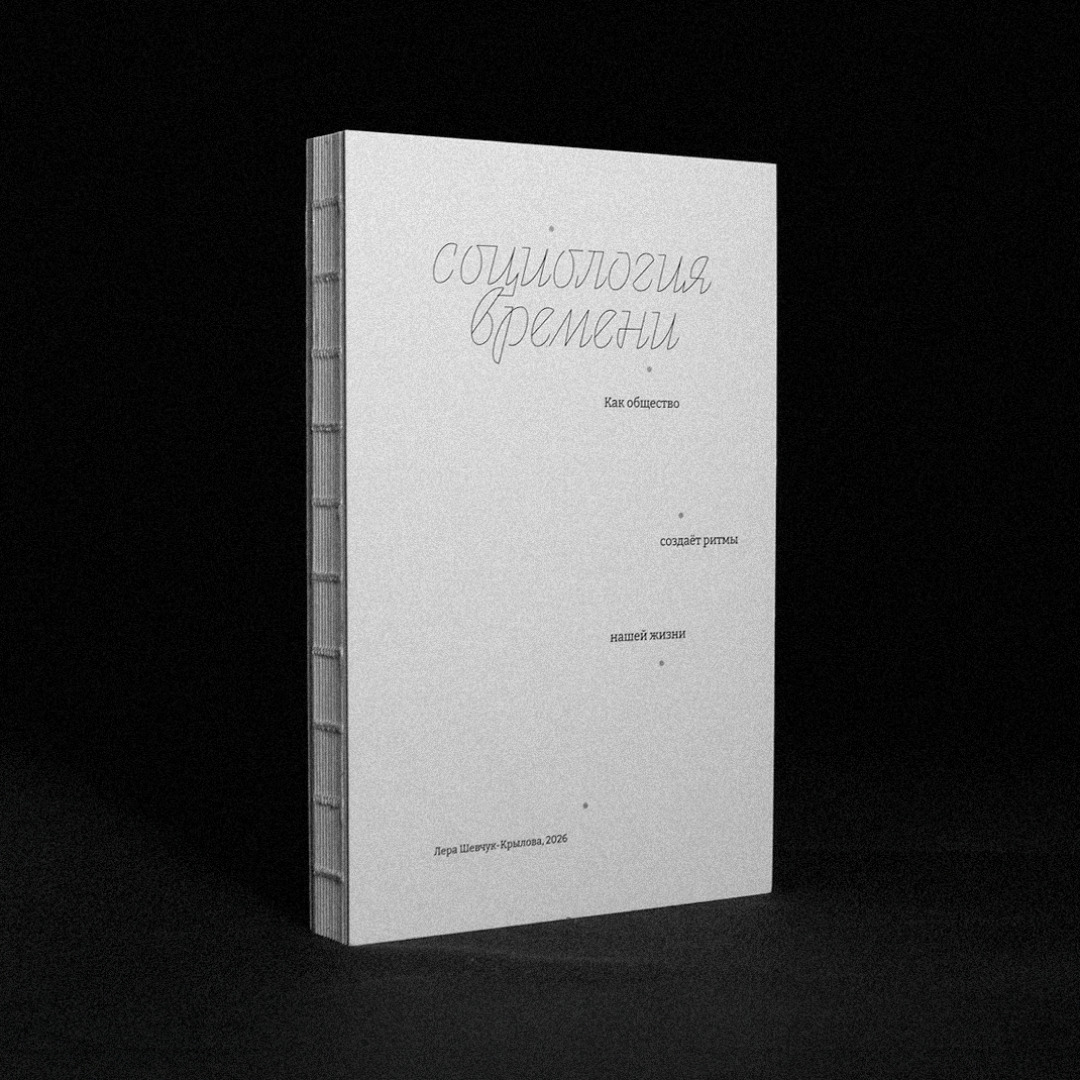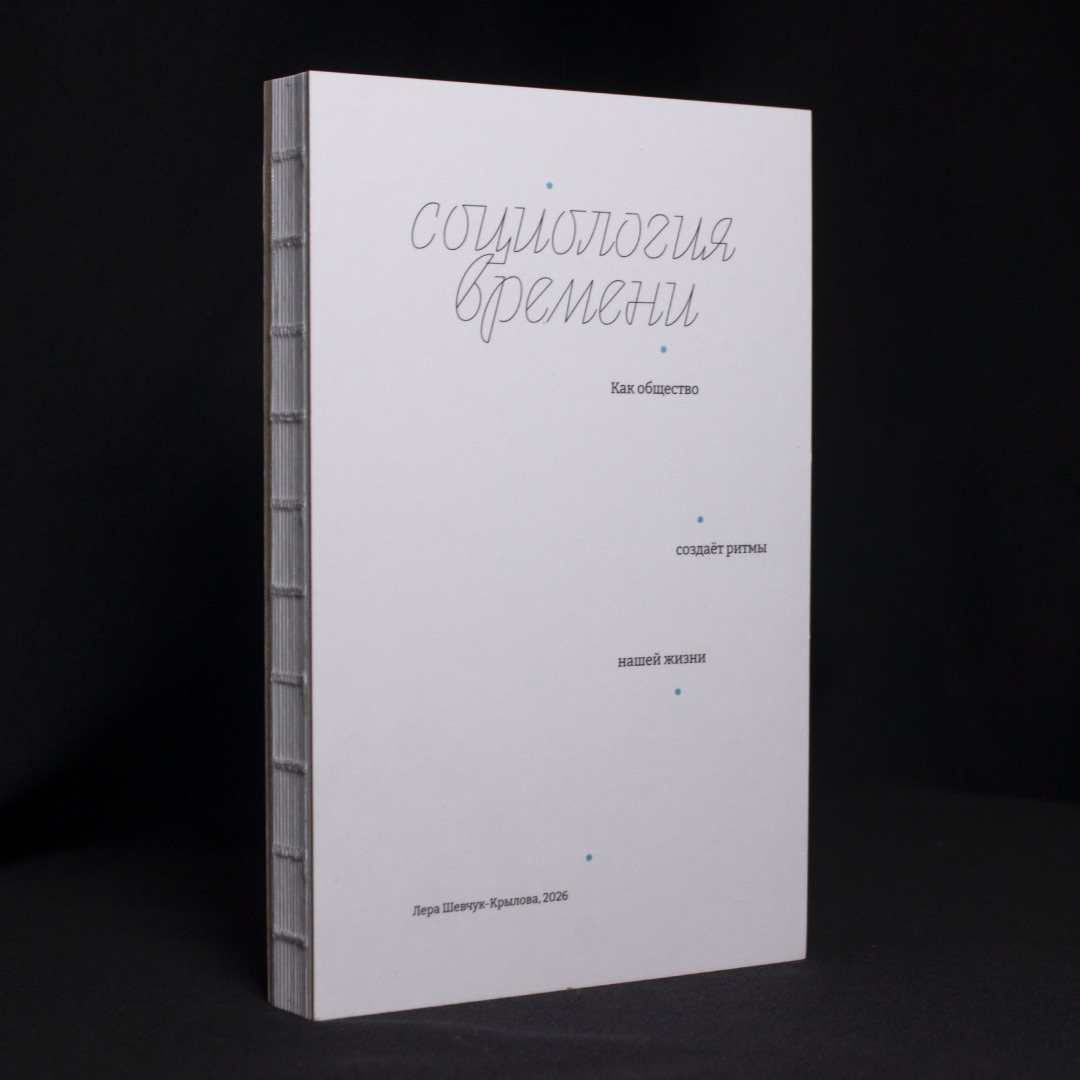
Sociology of Time is a student project by Valeria Shevchuk-Krylova in which she explores social time — which, unlike physical time, is measured not in hours and minutes, but in cultural events, technological advancements, and acquisition of collective experience. The book titles are set in Curbe by Оlga Pankova, while Bitter, designed by Sol Matas, is used for body text.
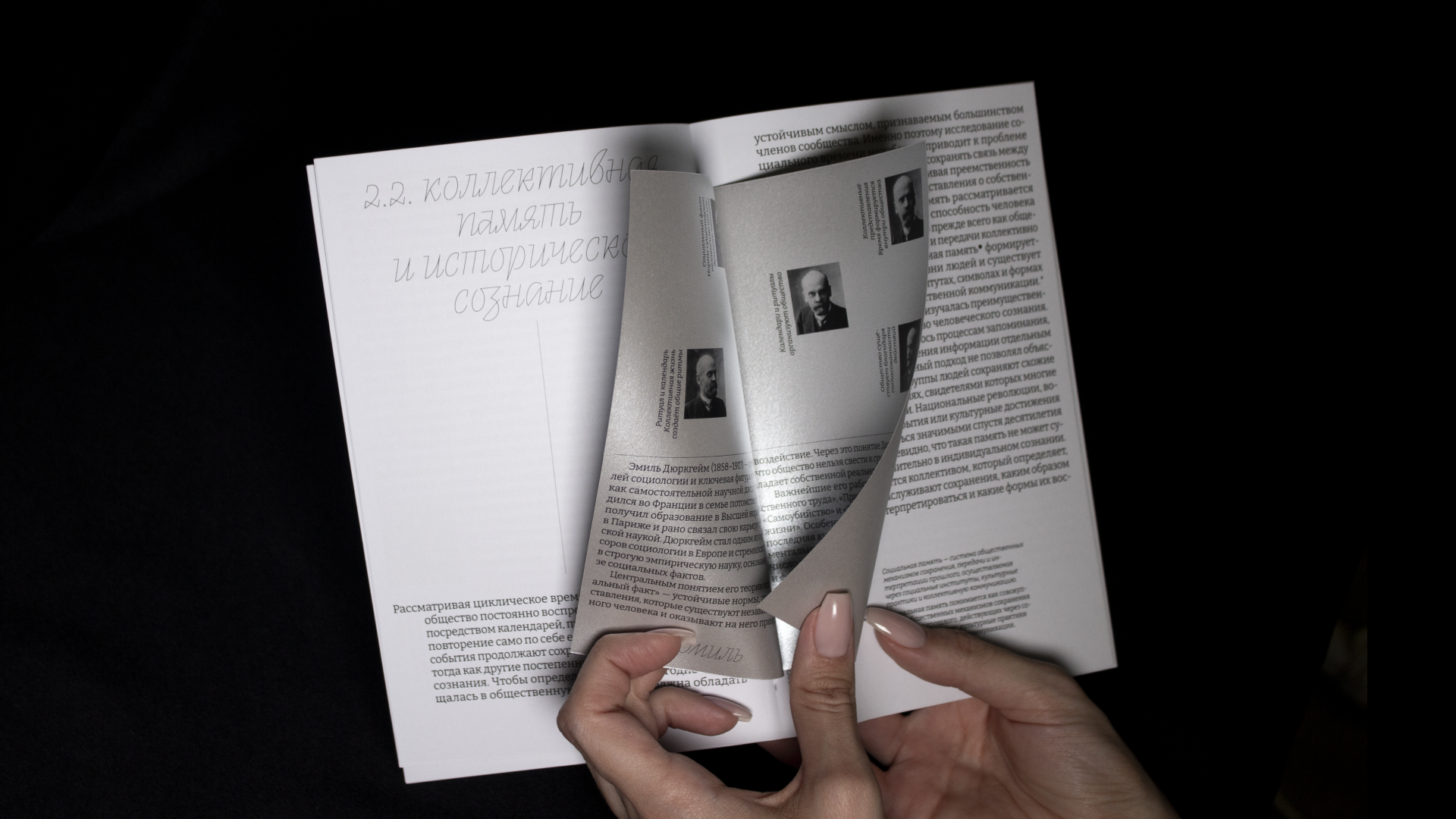
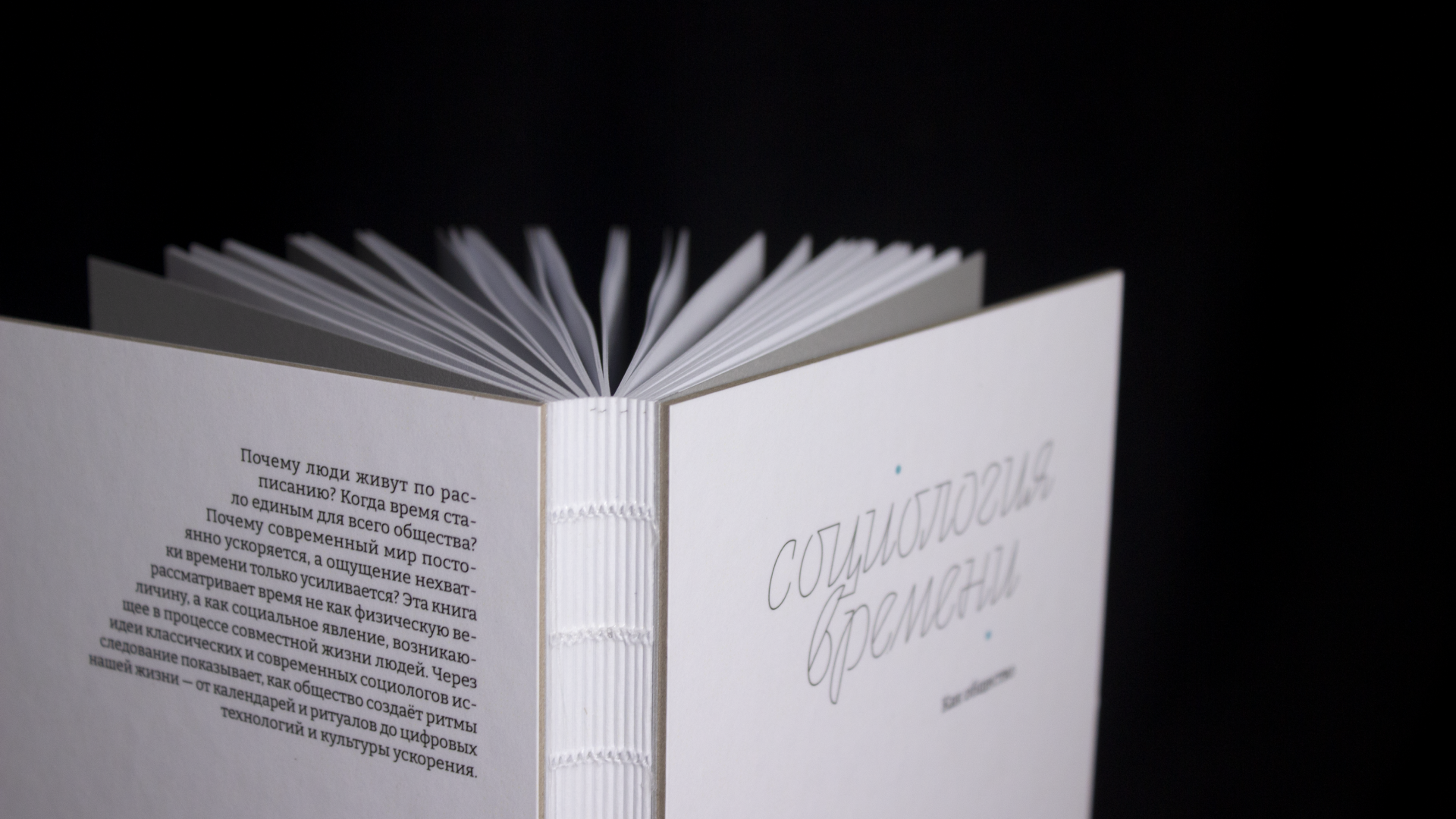
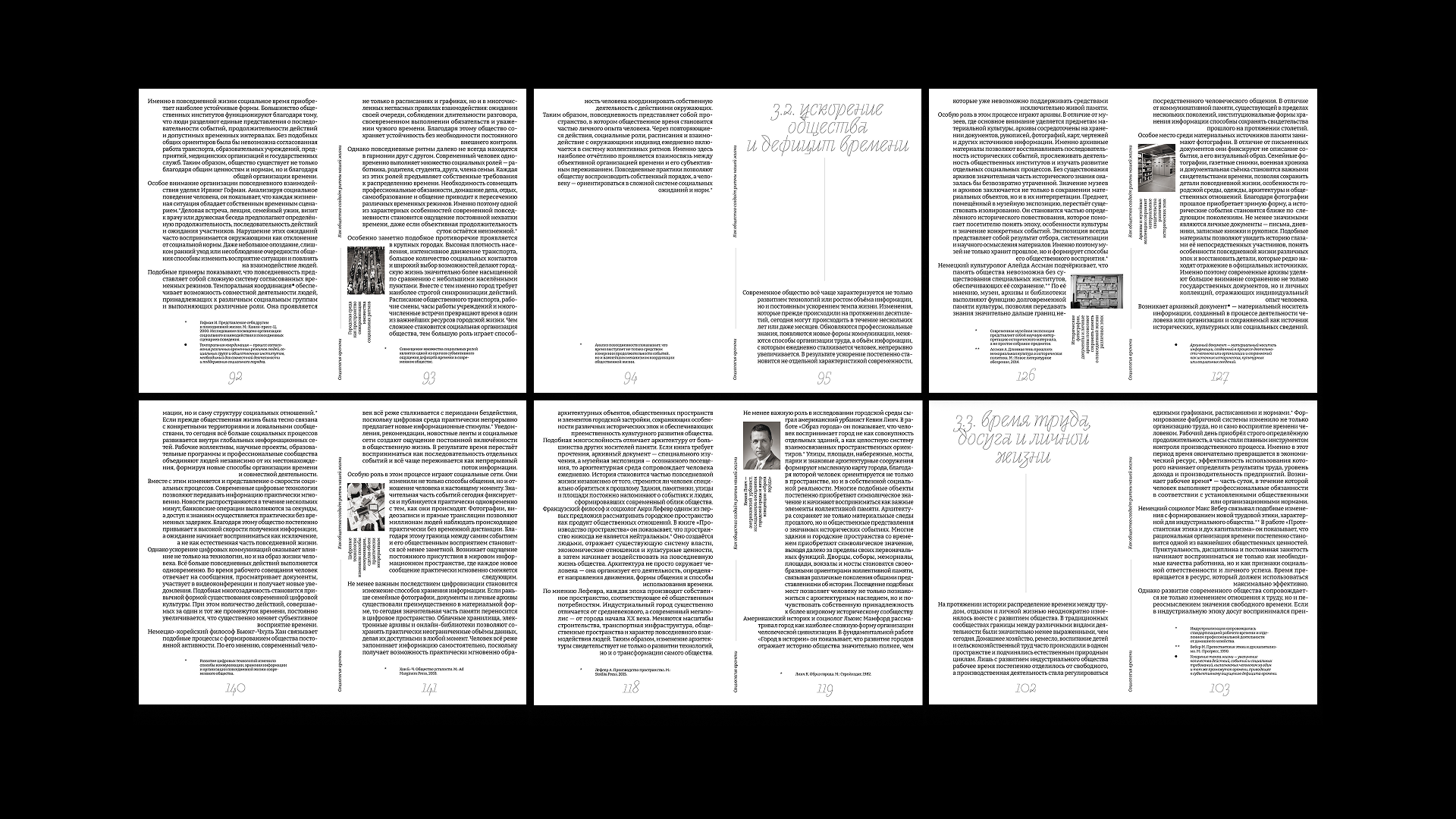
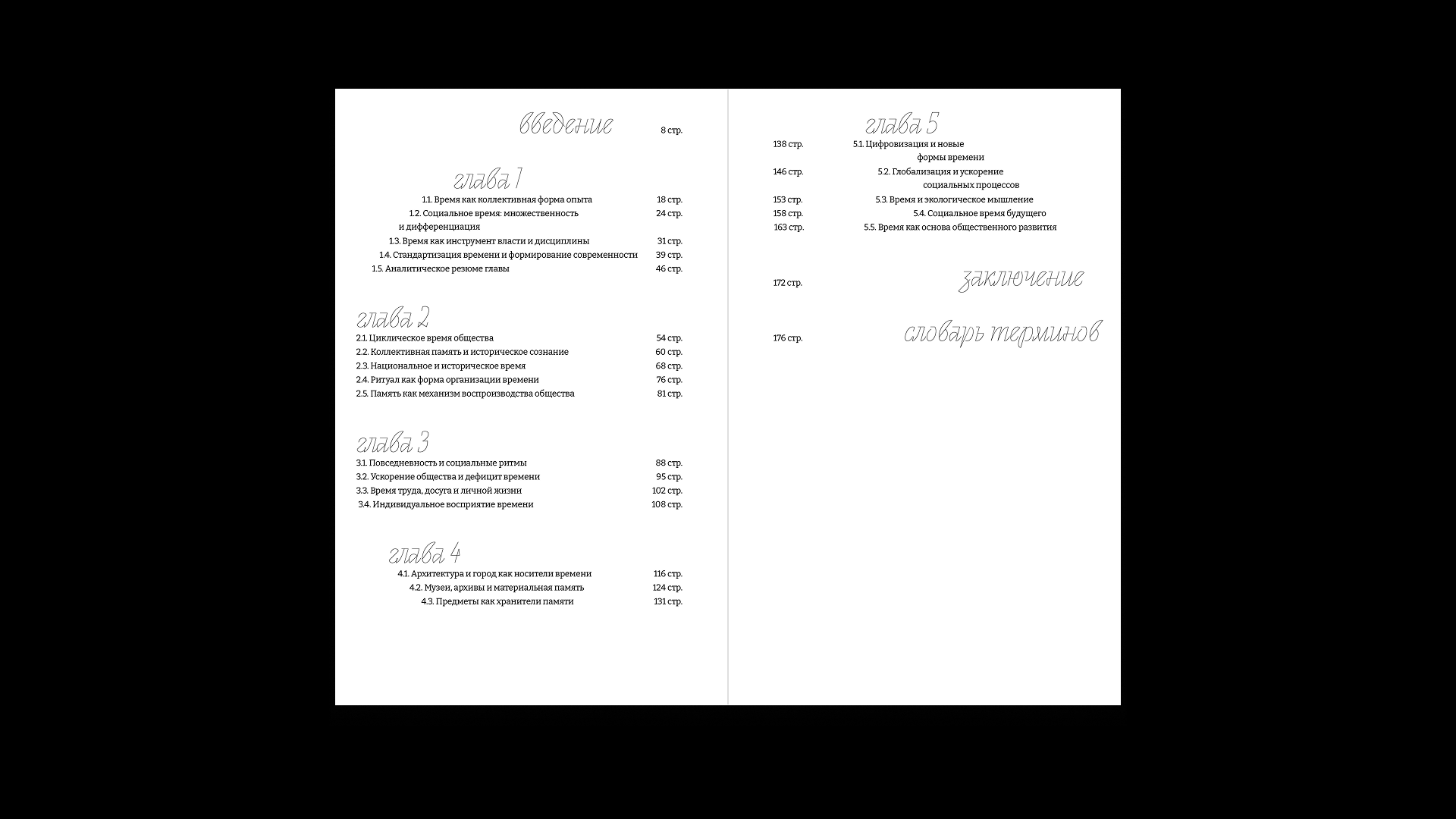
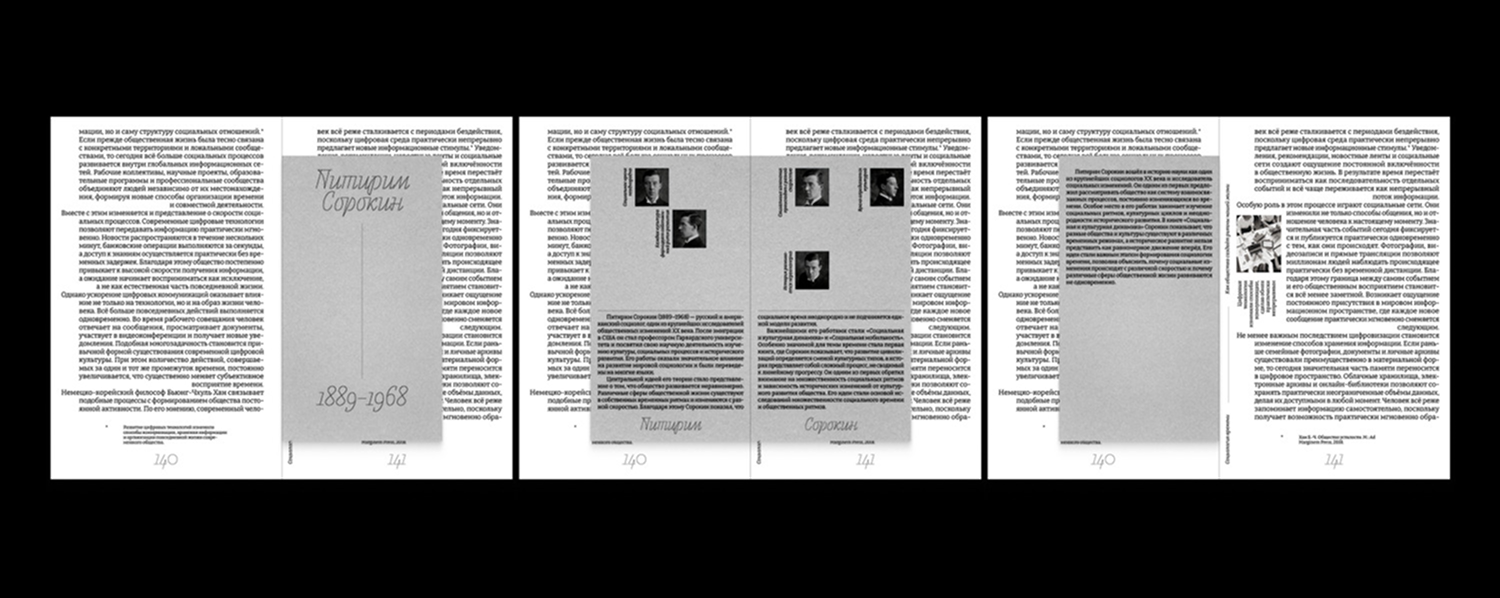
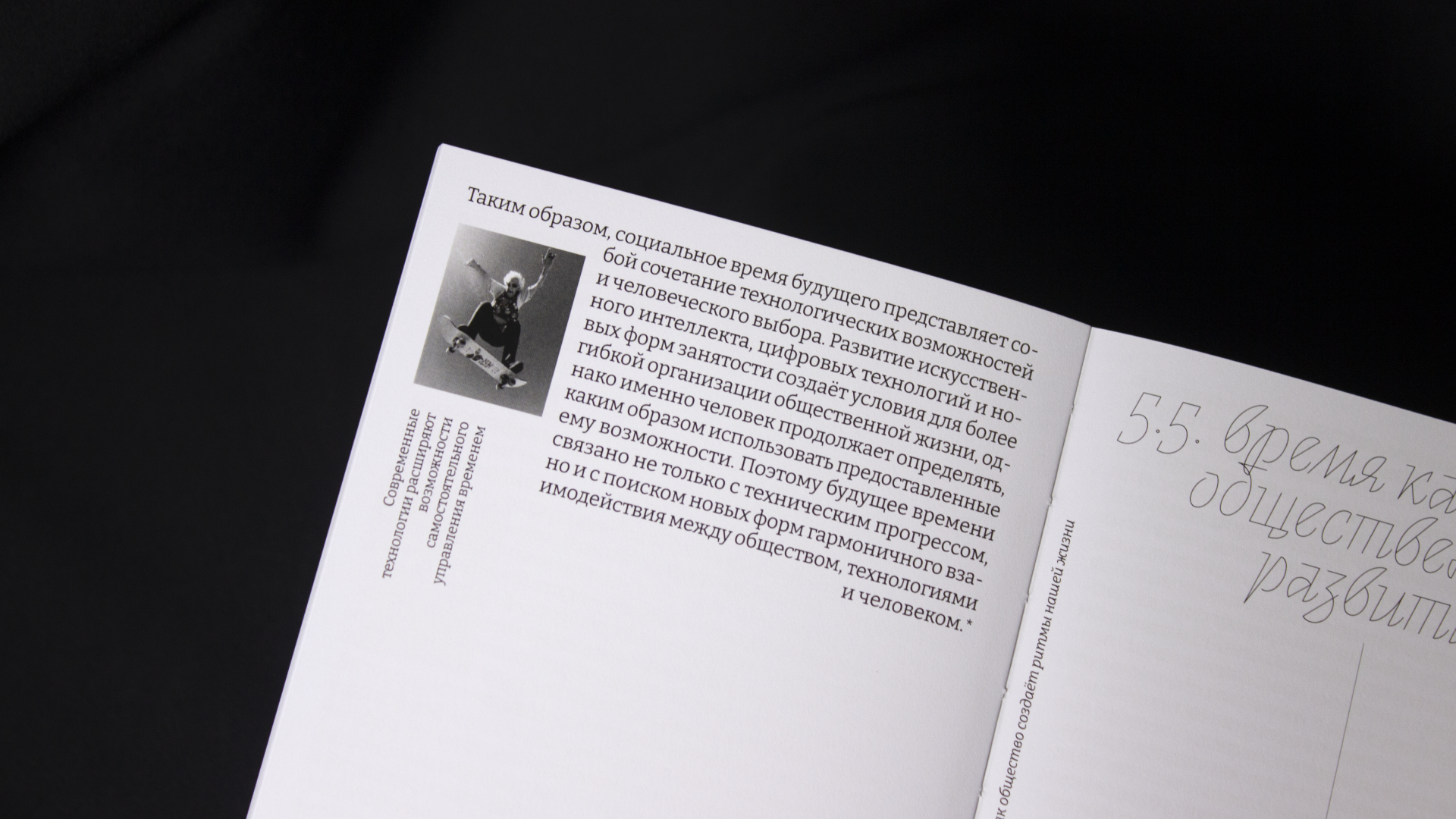
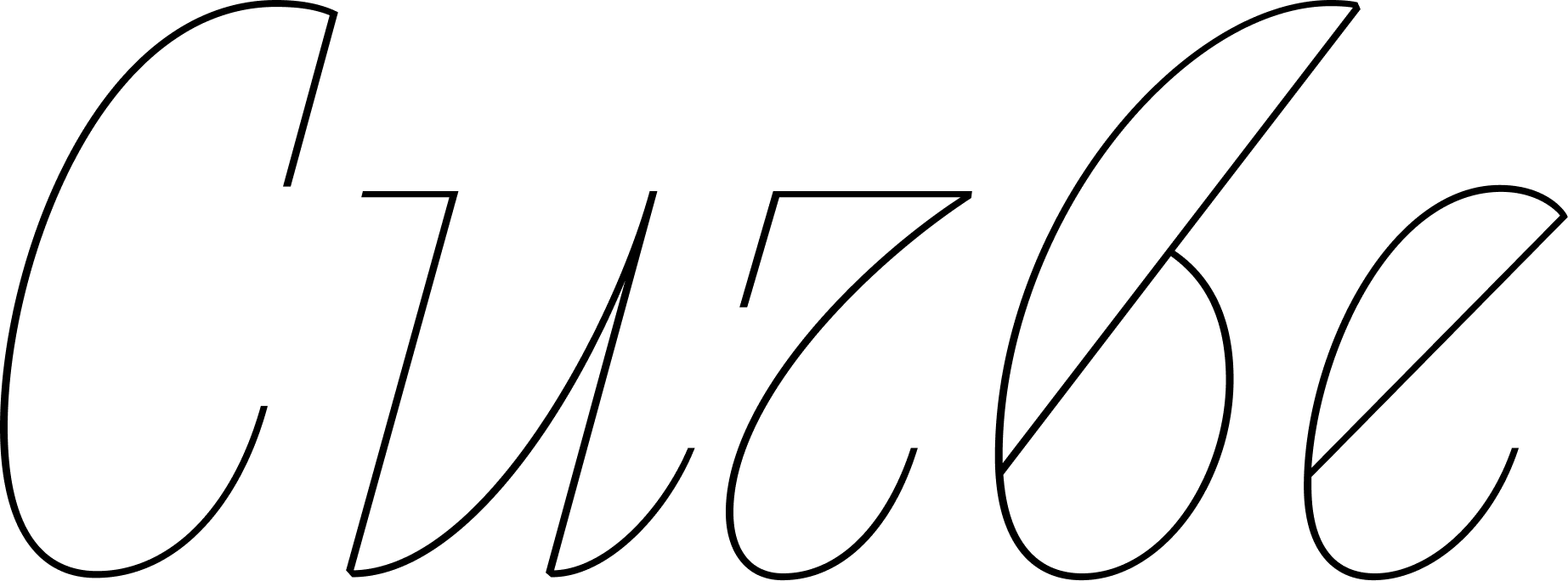
Curbe is a display face inspired by the Soviet 1960s. Technically, there are no historical references; it’s rather about vibe and style — this contemporary script font is active, angular, dynamic. Many glyphs come with alternates.